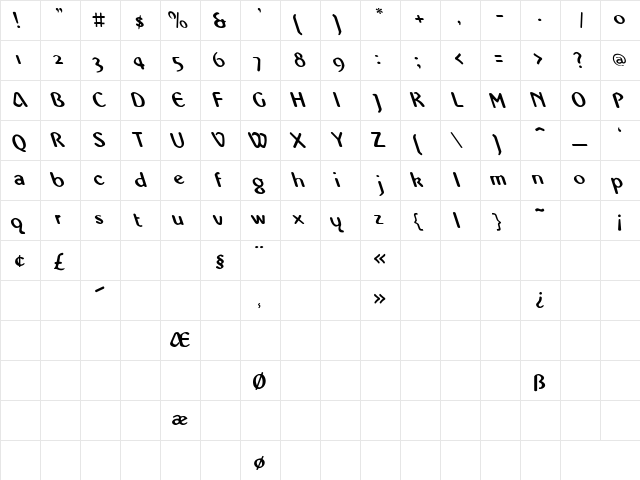
Abbey-Medium Lefty Regular
Design Context for Abbey-Medium Lefty Typeface
Abbey-Medium Lefty takes a measured approach to typography — its balanced proportions and neutral character make it a reliable workhorse for both digital and print work.